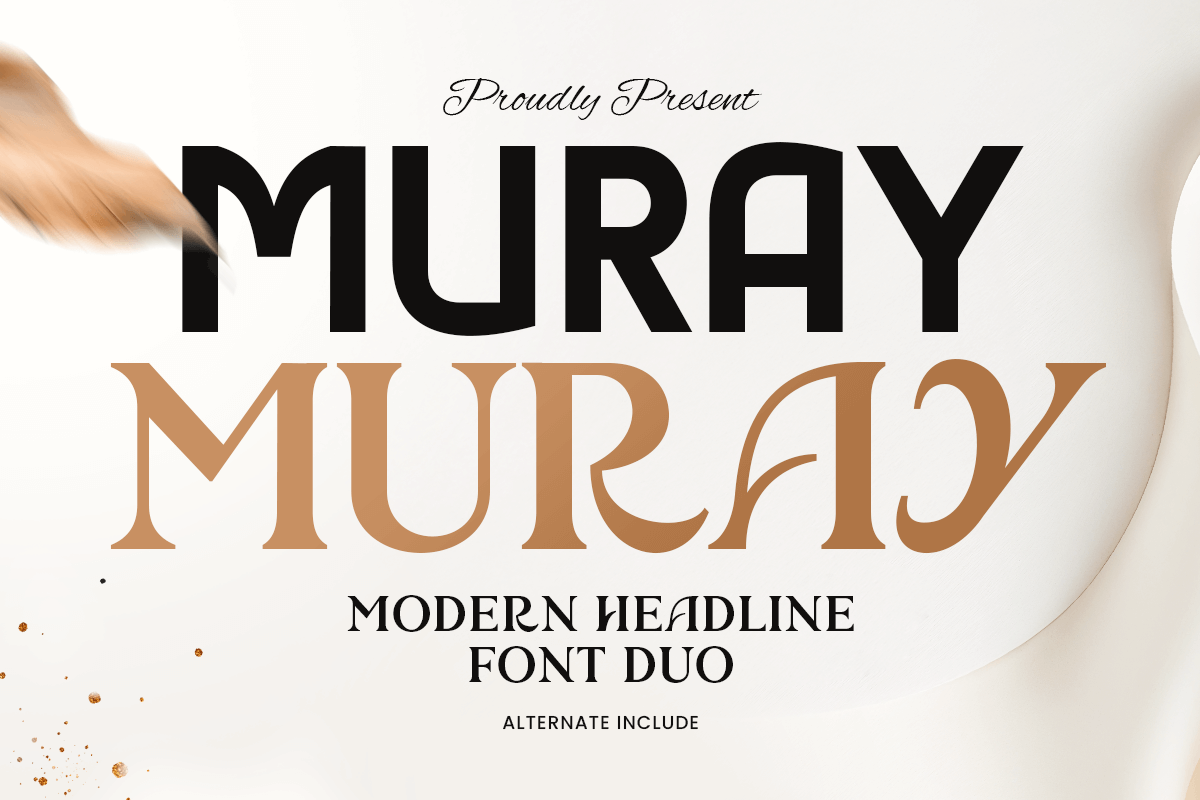
Muray
-Modern Headline Font Duo
Muray - Modern Headline Font Duo
MURAY is a modern headline font duo designed to bring strength and sophistication to your typography. Featuring two complementary styles — one bold and dynamic, the other refined and elegant — this duo is perfect for creating impactful headlines, stylish branding, and editorial layouts.
Crafted with a balance of geometric precision and modern aesthetics, MURAY gives your designs a distinctive visual rhythm. Use the two fonts together or individually to build consistent, professional, and eye-catching compositions for both print and digital projects.
Whether you’re working on fashion campaigns, creative branding, web design, or magazine titles, MURAY delivers versatility and bold personality — making it a go-to choice for designers seeking a modern, confident, and cohesive type system.
MURAY – Modern Headline Font Duo Features
• Two complementary fonts (Sans & Serif) for modern design flexibility
• Clean geometric construction for bold and elegant layouts
• OpenType features for enhanced typographic control